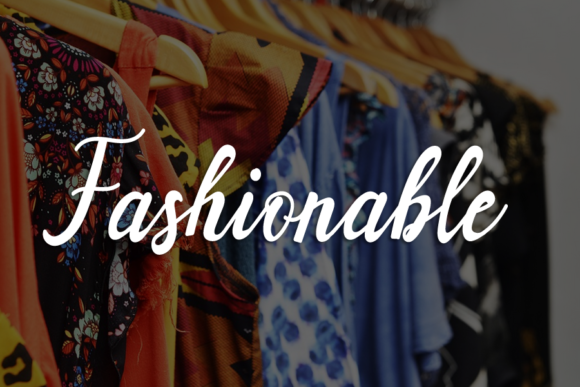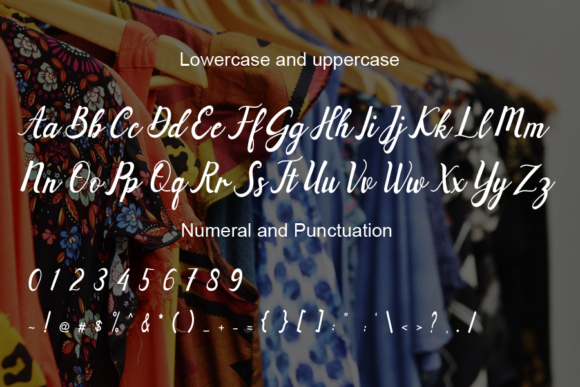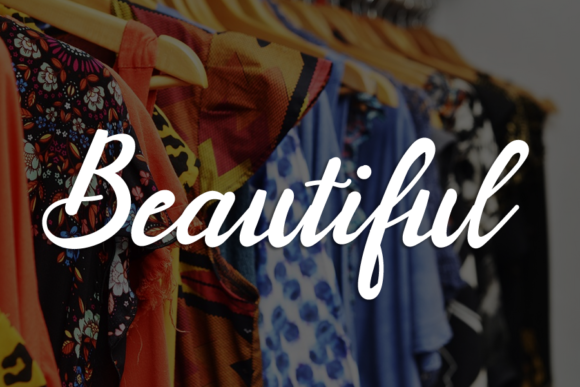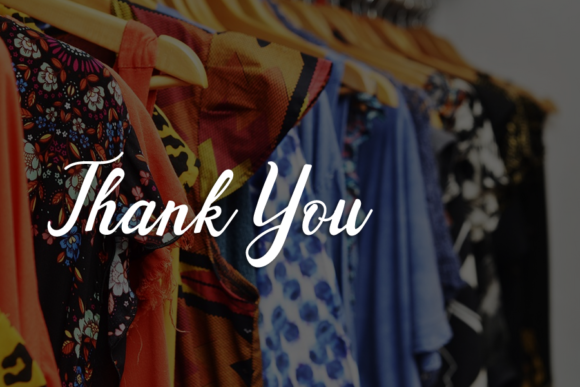
Discover the Timeless Elegance of Boutique Font
Have you ever stared at a blank page, waiting for inspiration to strike? You know, that moment when the perfect idea finally clicks, and your creativity flows like a river? For many designers, that moment is what makes all the hard work worth it. And, for those who crave that special something, we’ve got just the thing – the enchanting Boutique Font.
This flowing handwritten font is more than just a pretty face; it’s a key to unlocking your creativity and elevating your designs to new heights. With its elegant touch and timeless style, Boutique Font is the perfect addition to any project. Whether you’re working on a wedding invitation, a logo, or a social media campaign, this font is sure to make your designs stand out.
As a designer, you know that the right font can make all the difference. That’s why we’re excited to introduce you to Boutique Font, a valuable tool that will help you create spectacular designs that leave a lasting impression.
Boutique Font Key Features
- Unique Characteristics: Hand-drawn design with subtle texture and intricate details for a luxurious feel
Boutique Font Review
Overall, I’m impressed with the Boutique Font. Here are some things that work well: ✨
- Unique style: The font has a distinctive and elegant touch that’s perfect for luxury brands.
- Limited language support: The font only supports a limited range of languages, which might be a problem for global brands.
- No OpenType features: The font doesn’t support advanced OpenType features like ligatures and swashes.
- Not suitable for body text: The font is best used for headlines and titles, as it can be difficult to read in large blocks of text.
Overall, I’d say the Boutique Font is a great choice for designers looking for a luxurious and elegant font. While it has some limitations, its unique style and high-quality rendering make it a great addition to any design project.
Boutique Font is ideal for:
- Brand logos and marketing materials
- Editorial and magazine design
- Event invitations and promotional materials